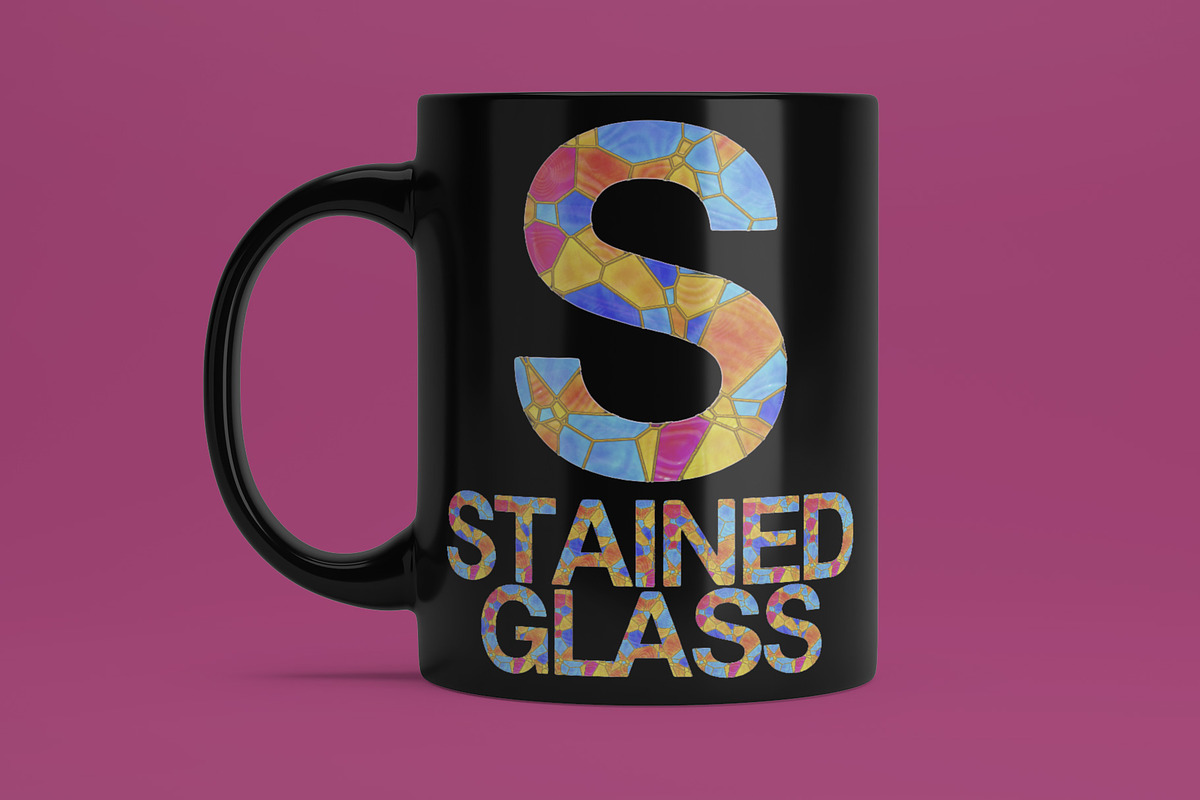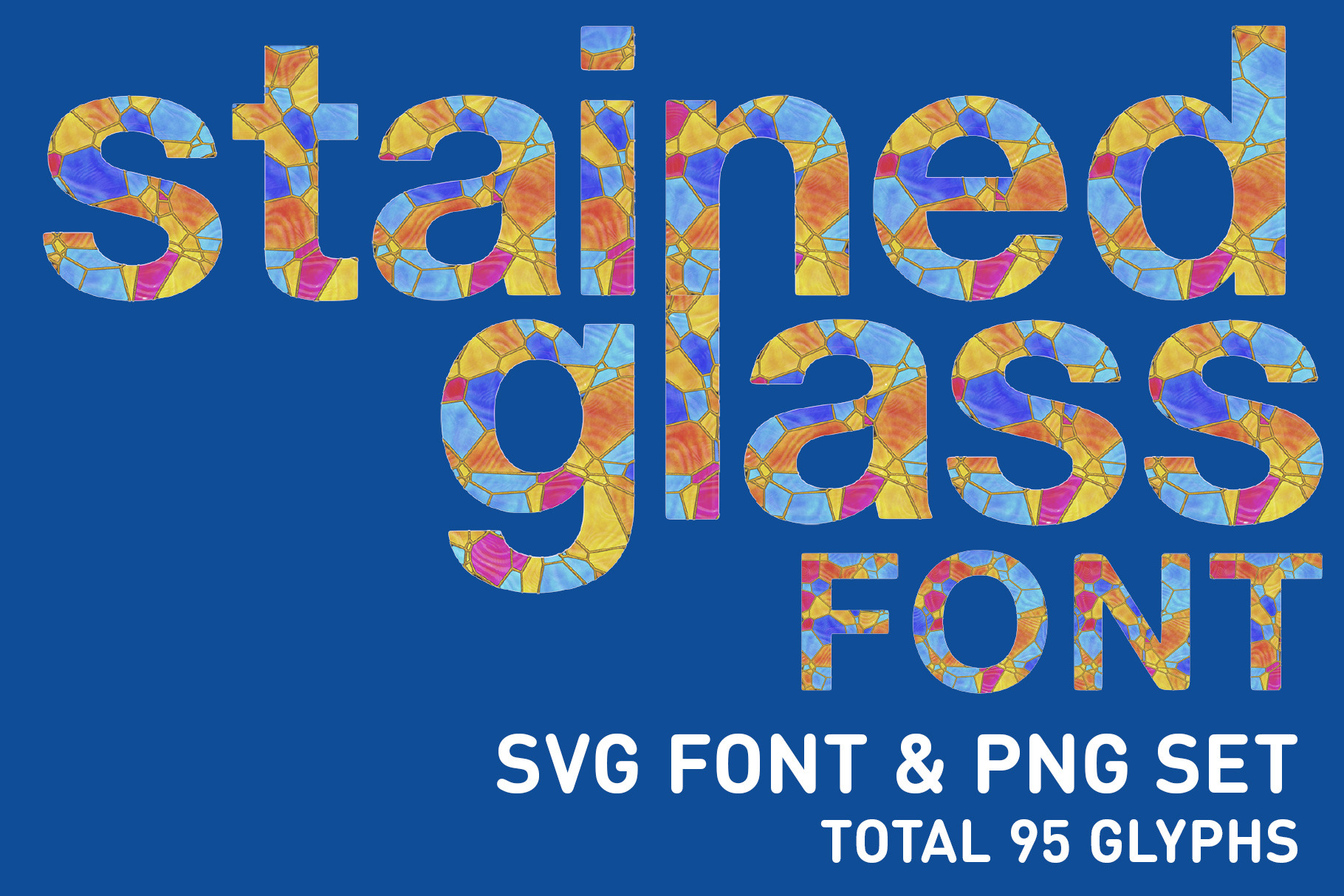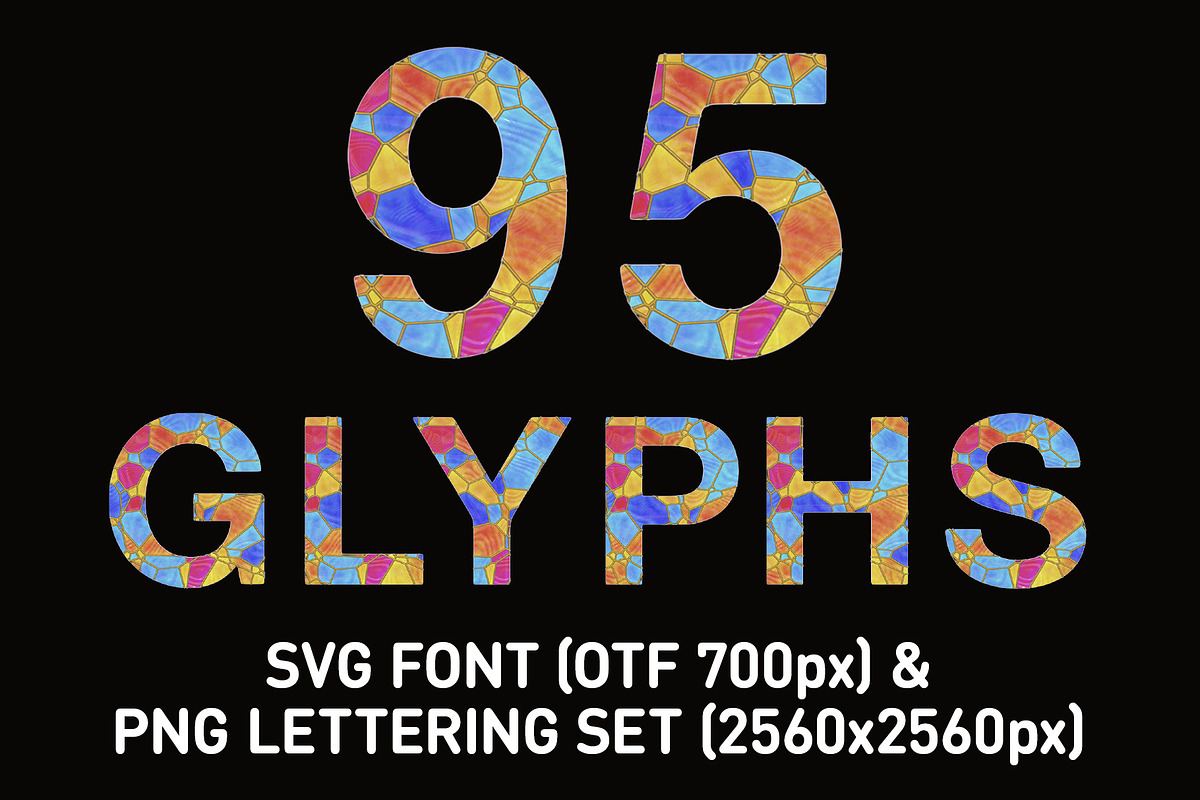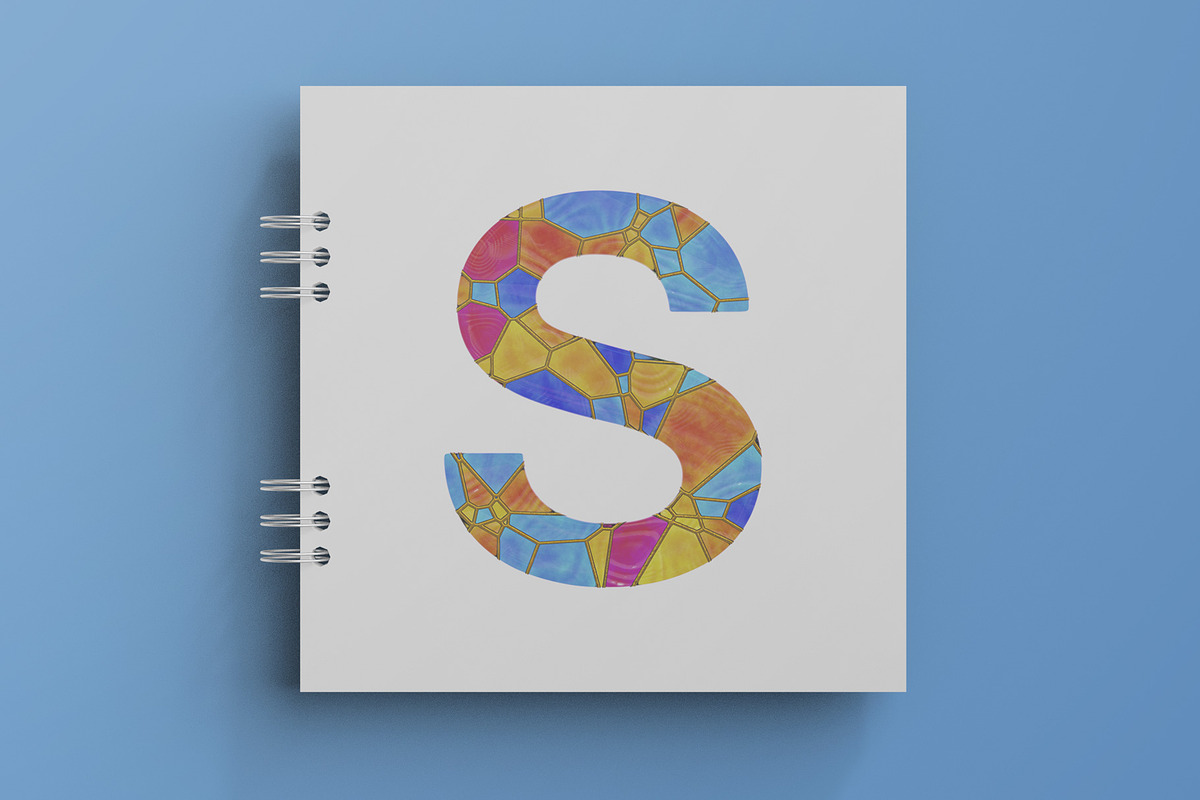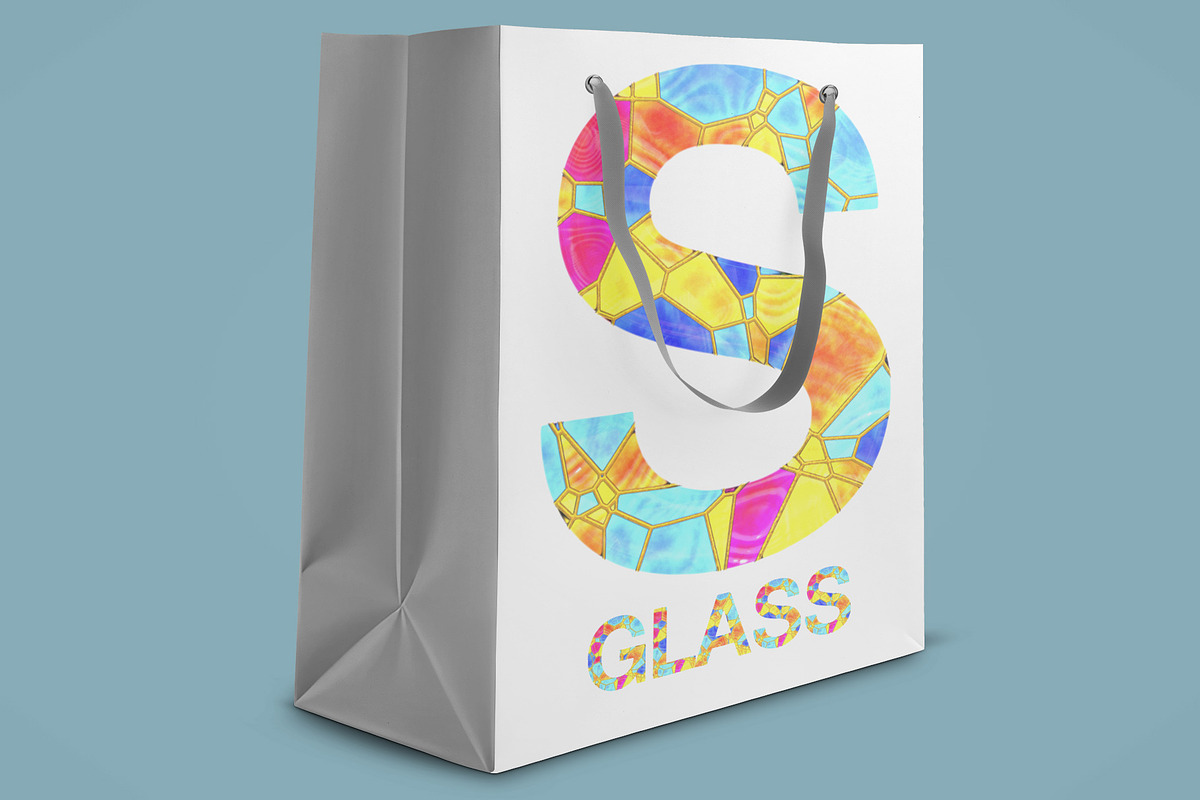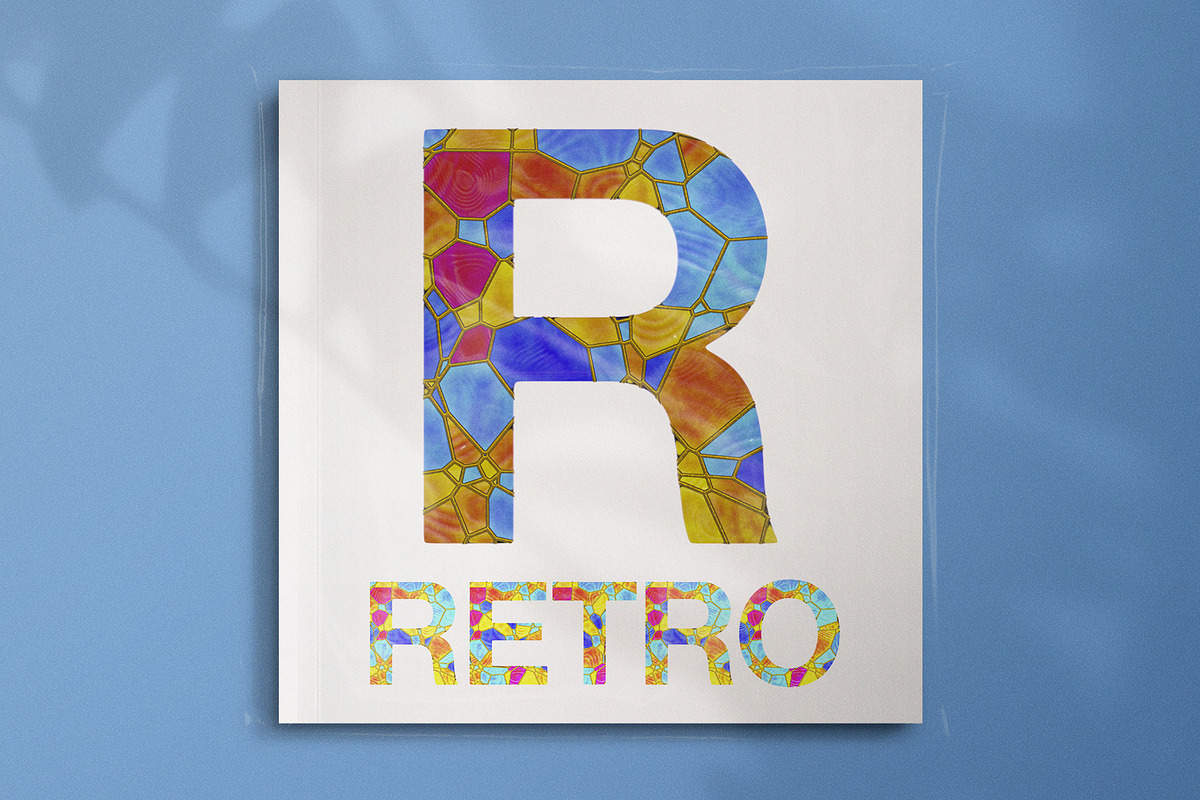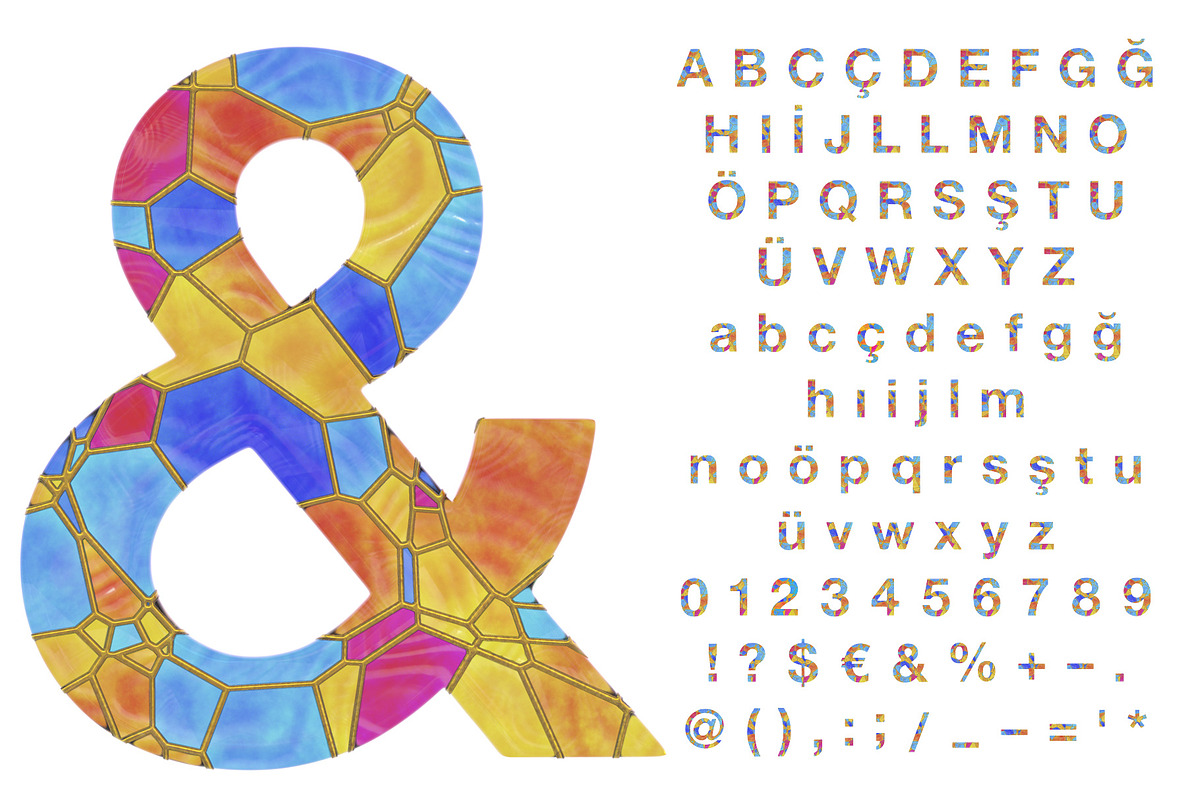
Stained Glass Font & PNG Set
Illuminate your designs with this radiant font set.
This beautiful package includes a 3D render set of a stained glass alphabet and font in both PNG and OTF formats. The font includes uppercase and lowercase letters, numbers, and punctuation marks, all intricately designed with a stained glass style. The PNGs are high-resolution and can be used for a variety of creative projects. Add a touch of elegance and artistry to your designs with this stunning font set.
- Total 95 Glyphs
- Uppercase Letters : A B C D E F G H I J L L M N O P Q R S T U V W X Y Z
- Lowercase Letters : a b c d e f g h i j k l m n o p q r s t u v w x y z
- Extended Letters : Ç İ Ş Ö Ü Ğ ç ı ş ö ü ğ
- Numbers : 0 1 2 3 4 5 6 7 8 9
- Others : ! ? $ € & % + - . @ ( ) , : ; / _ - = ' *